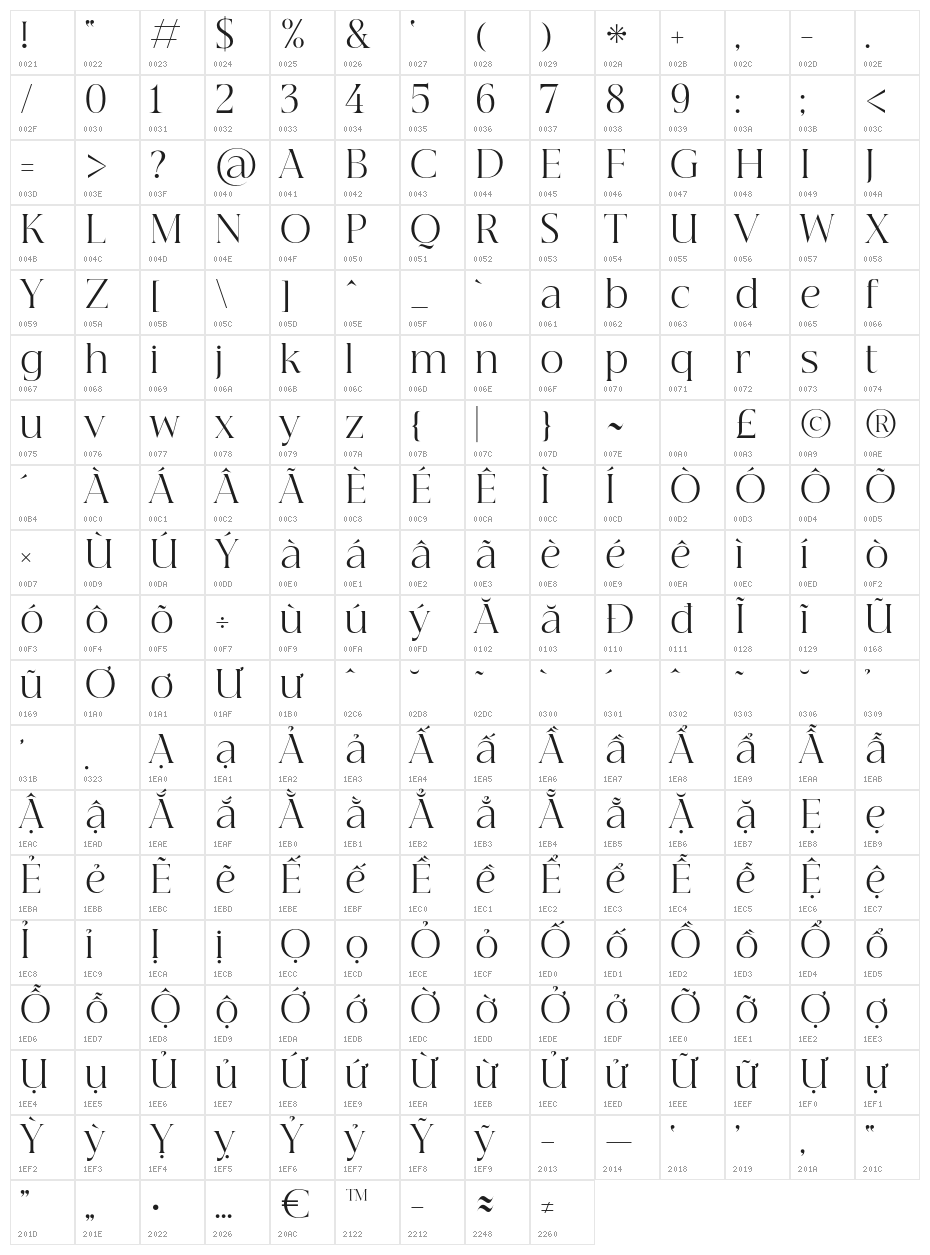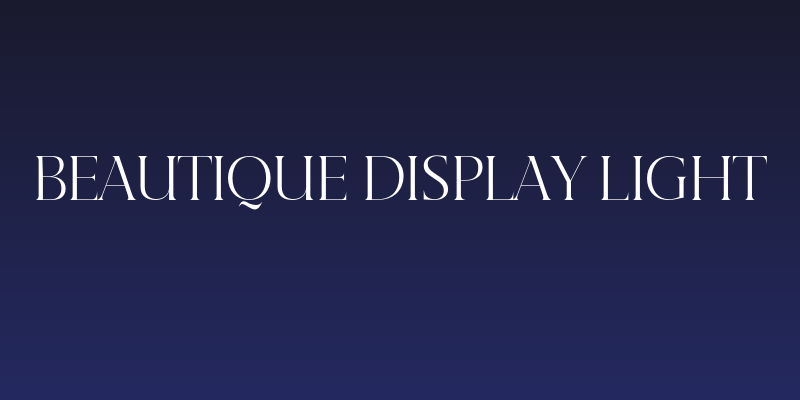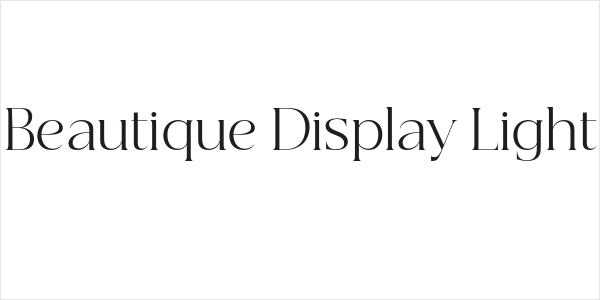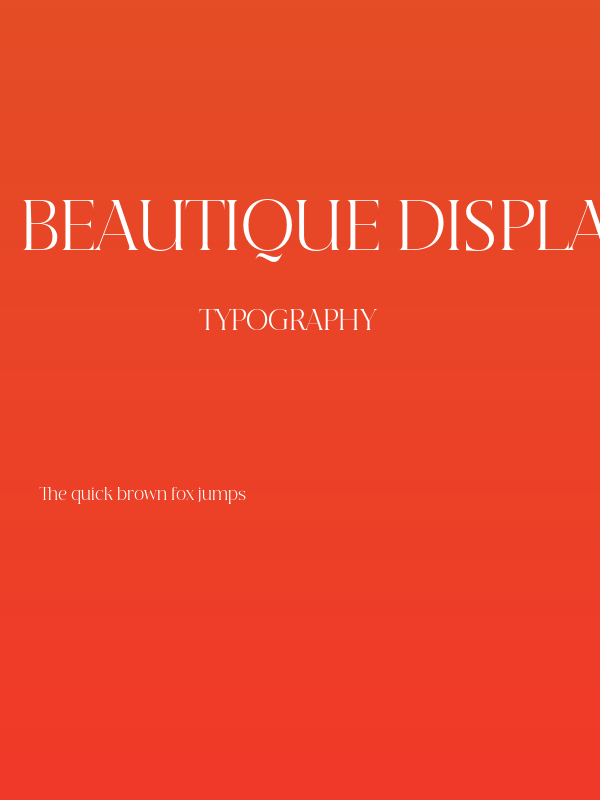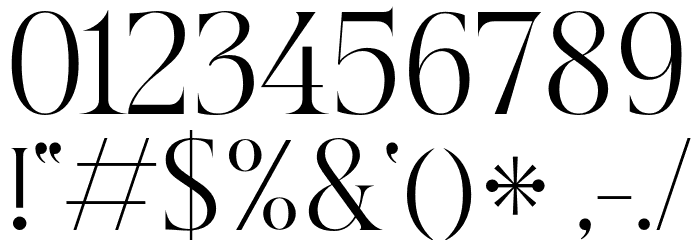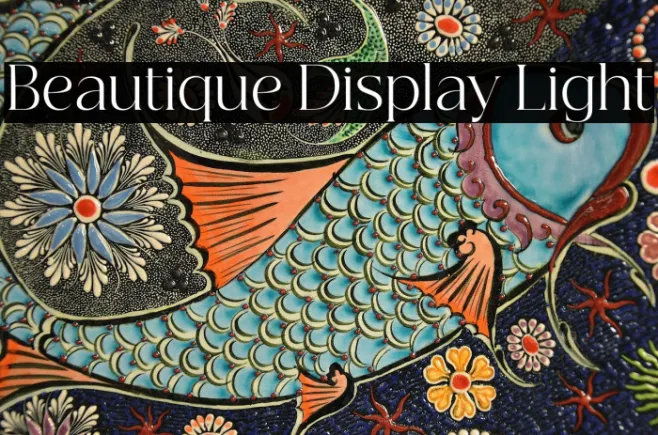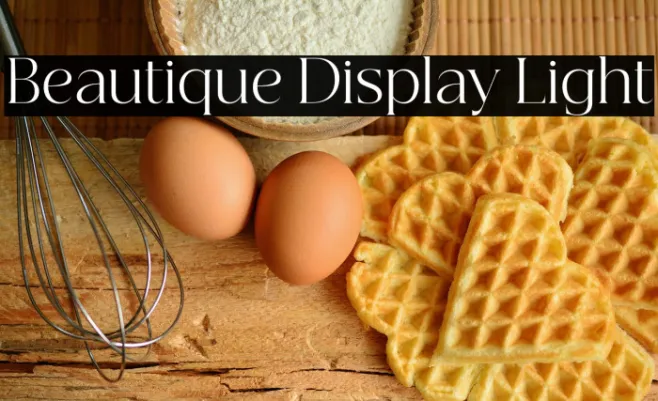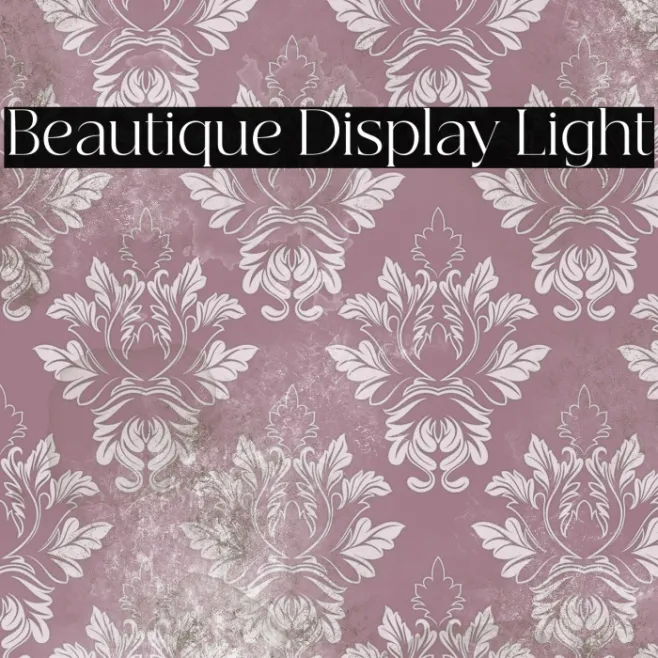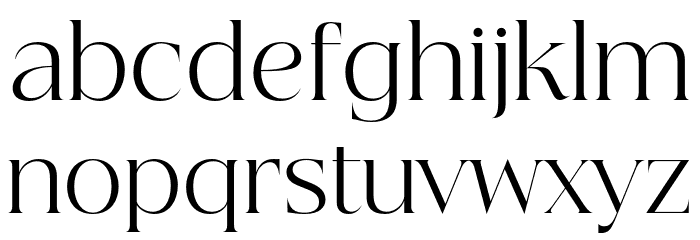
Beautique Display Light Font
Beautique Display Light Description
This font exudes elegance and sophistication with its thin, elongated strokes and high contrast between thick and thin lines. The characters are gracefully designed with a modern aesthetic, featuring sharp serifs and a refined structure. The uppercase letters are tall and commanding, while the lowercase letters maintain a delicate balance, offering a harmonious flow. The numerals are sleek and stylish, complementing the overall design. Special characters are crafted with precision, adding to the font's versatility.